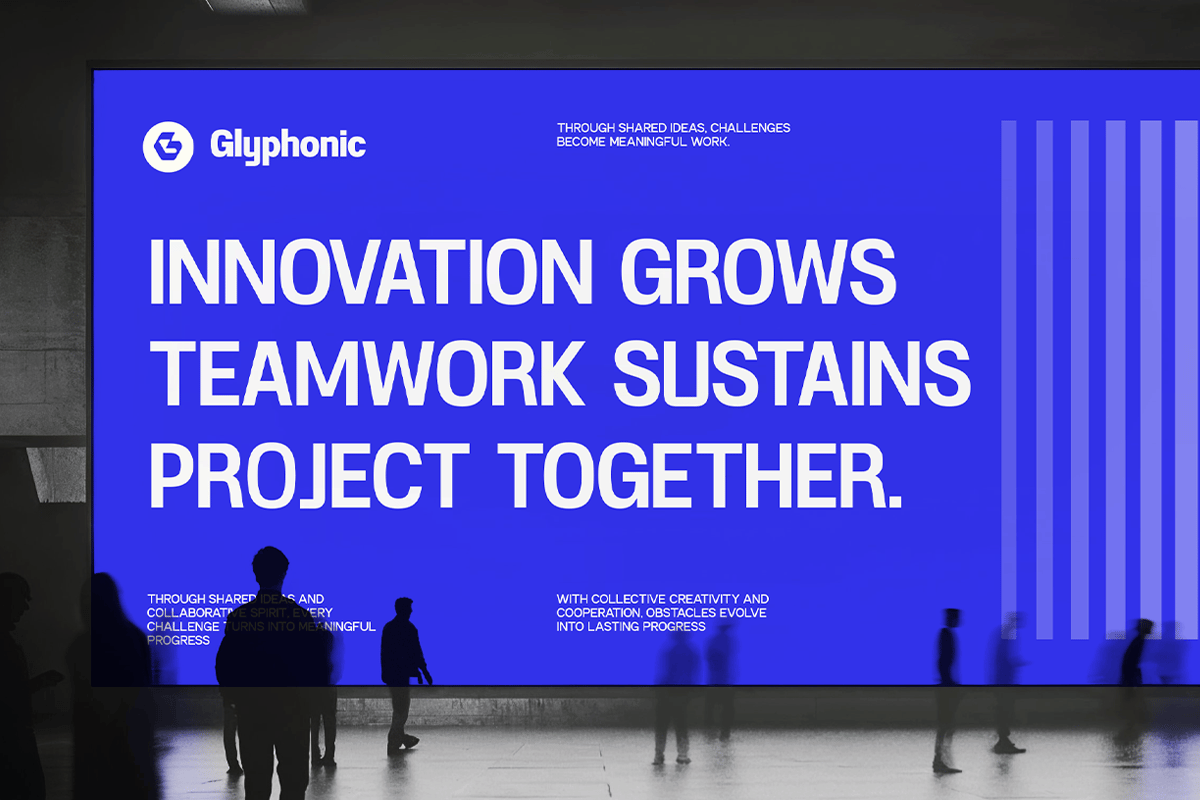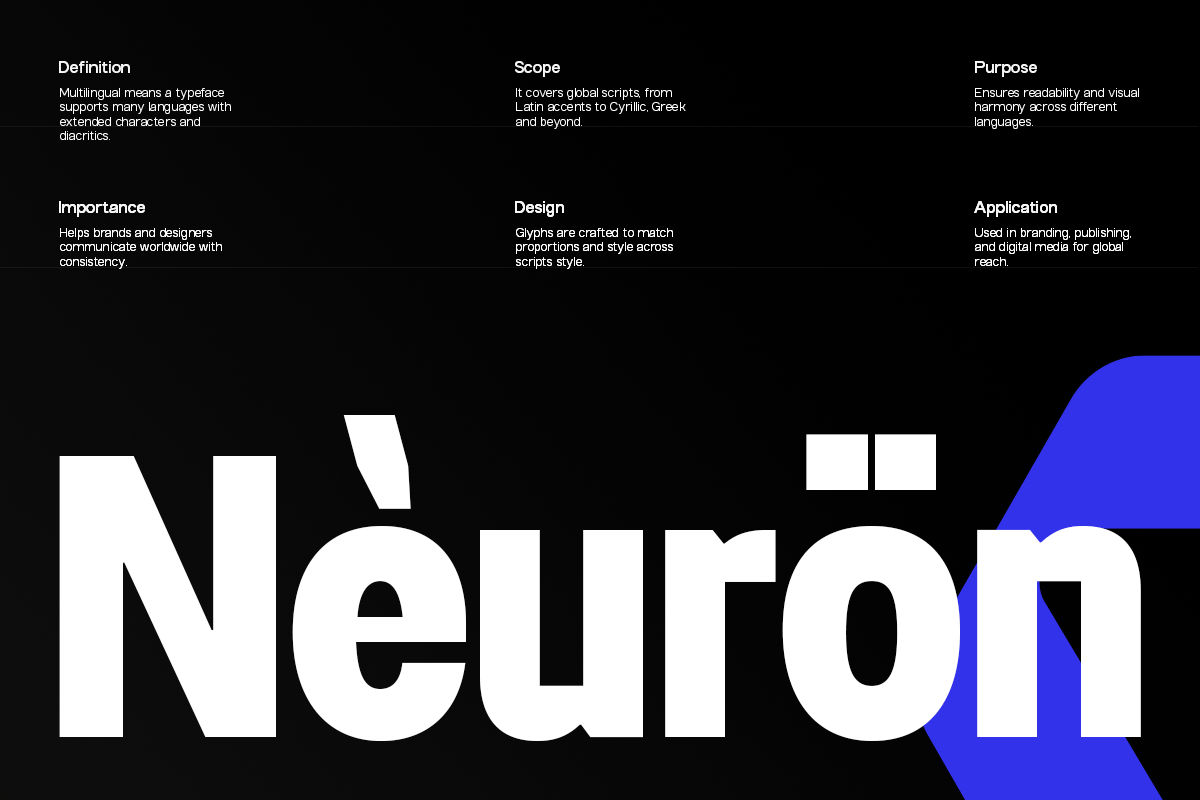
Nexora – Modern Variable Sans Font
Nexora (sold as GC Nexora) is a semi-condensed sans serif from Glyphonic. The letters are compact and upright, with tight curves and straight sides, so you can set large, heavy headlines without them running off the page. At bold weights it feels confident and slightly technical, like signage in a modern office or a big campaign billboard.
Glyphonic released it as a variable font, with weight adjustable across a range of eight weights, plus static files. The specimen also shows accented letters, such as the “Nèurön” sample, for use across multiple languages.
Best uses for Nexora
• Campaign and billboard headlines
• Tech, start-up and corporate branding
• Presentation slides and reports
• Posters and event graphics
• Website hero titles
Nexora is narrow, so pair it with a wider, calmer face. Inter is a good body font for websites and decks. For a more editorial mix, try Source Serif 4 for paragraphs. For data, captions and code-like labels, IBM Plex Mono fits its technical tone.
What free font is similar to Nexora?
Try Archivo, a free variable sans with a width axis that can go semi-condensed, or Barlow Semi Condensed for a ready-made narrow family. Both are open-licence.
What is a variable font?